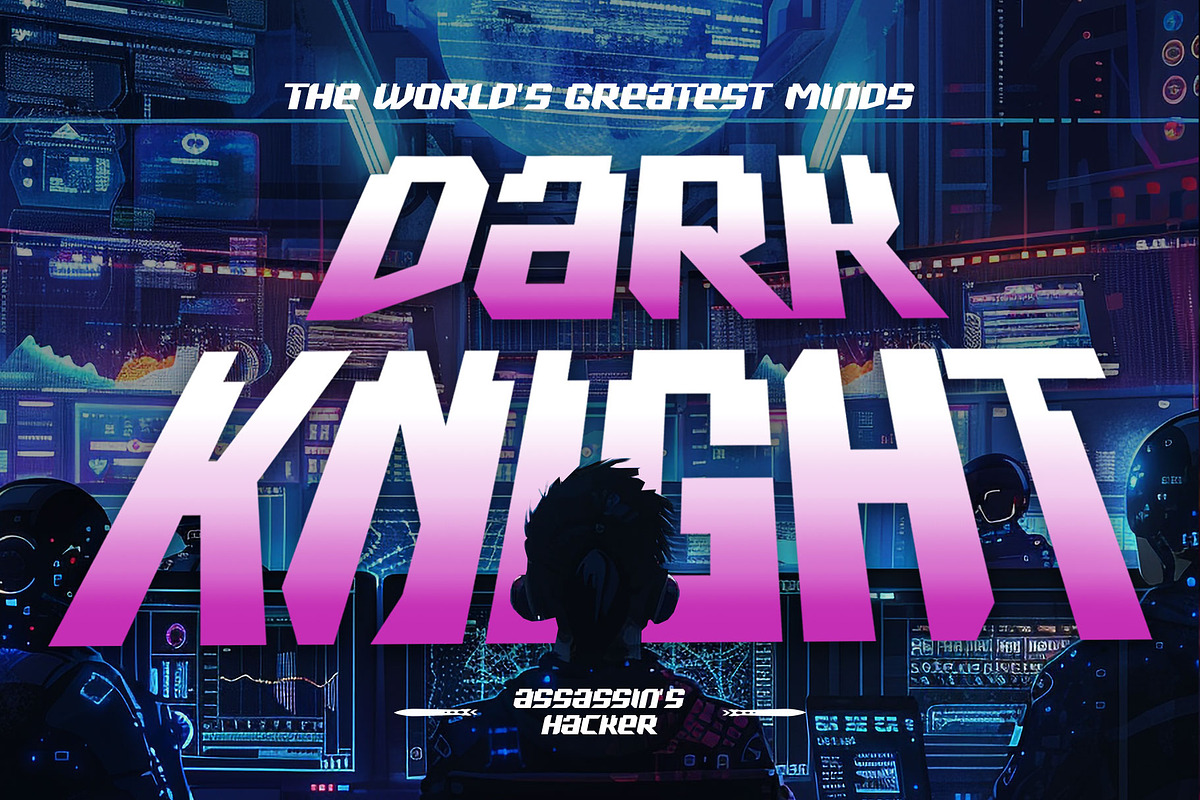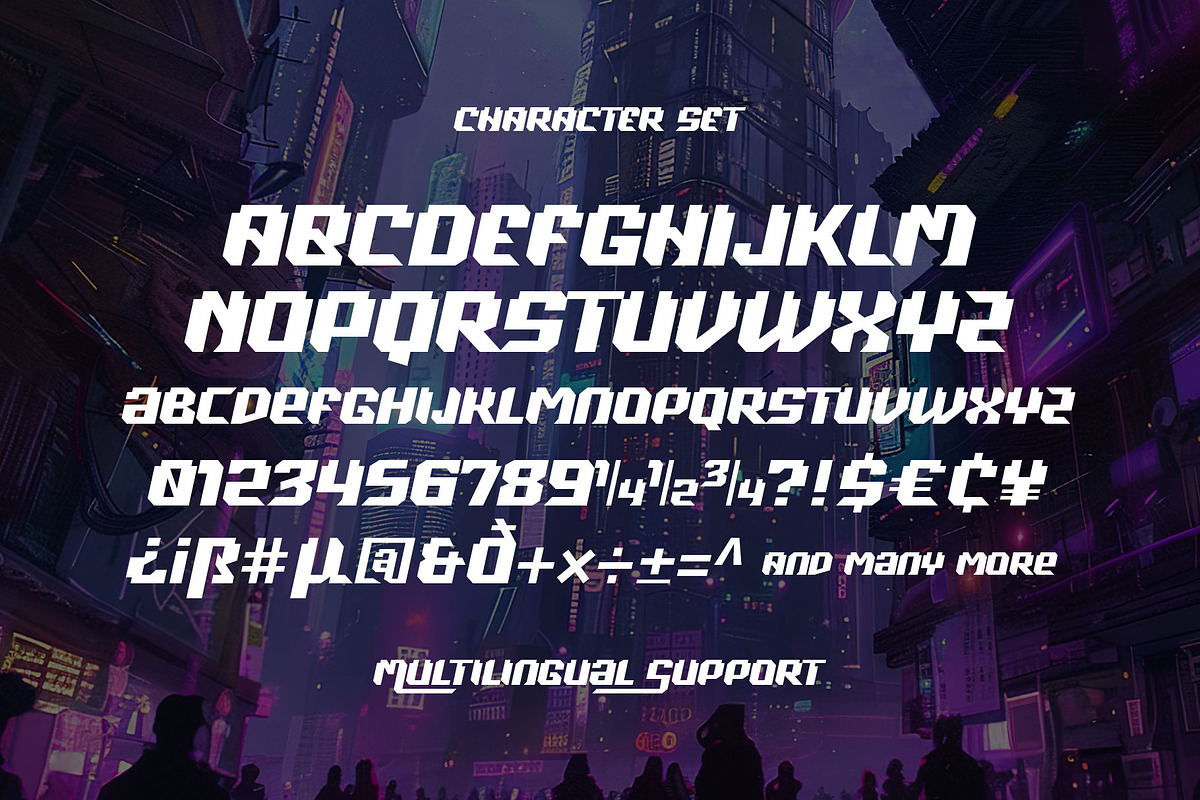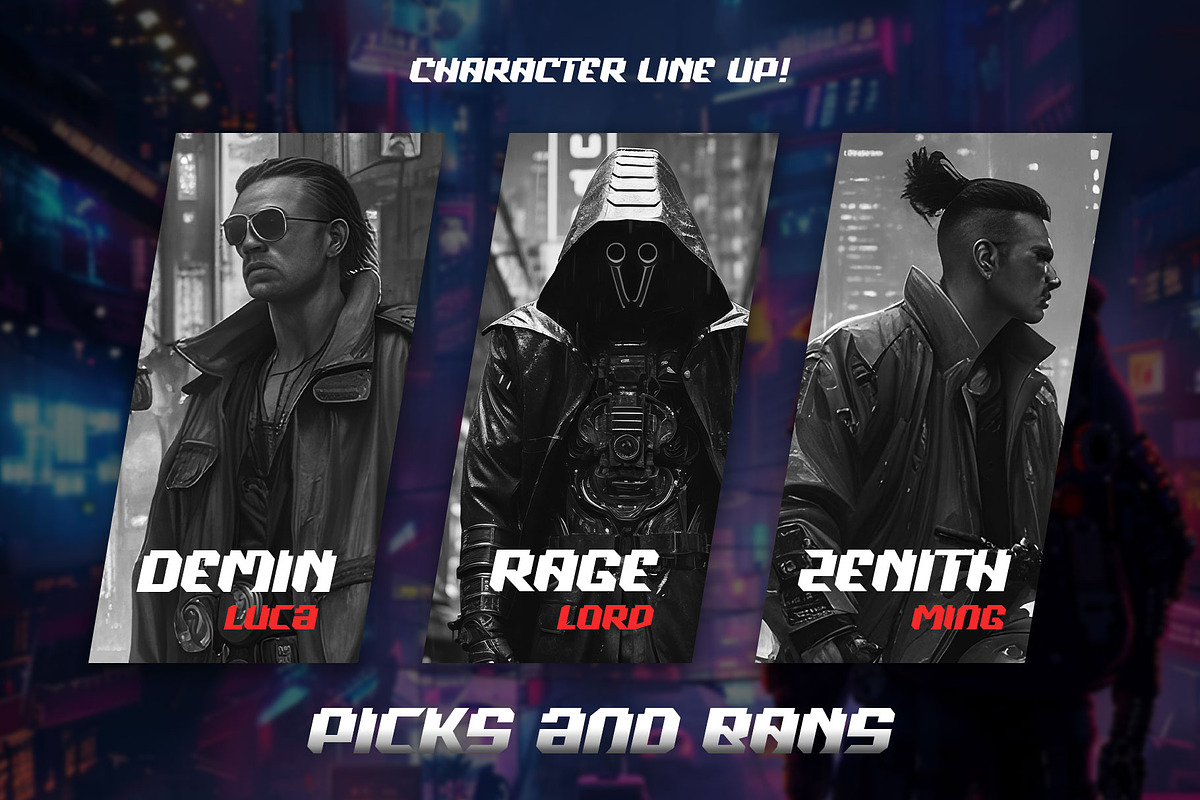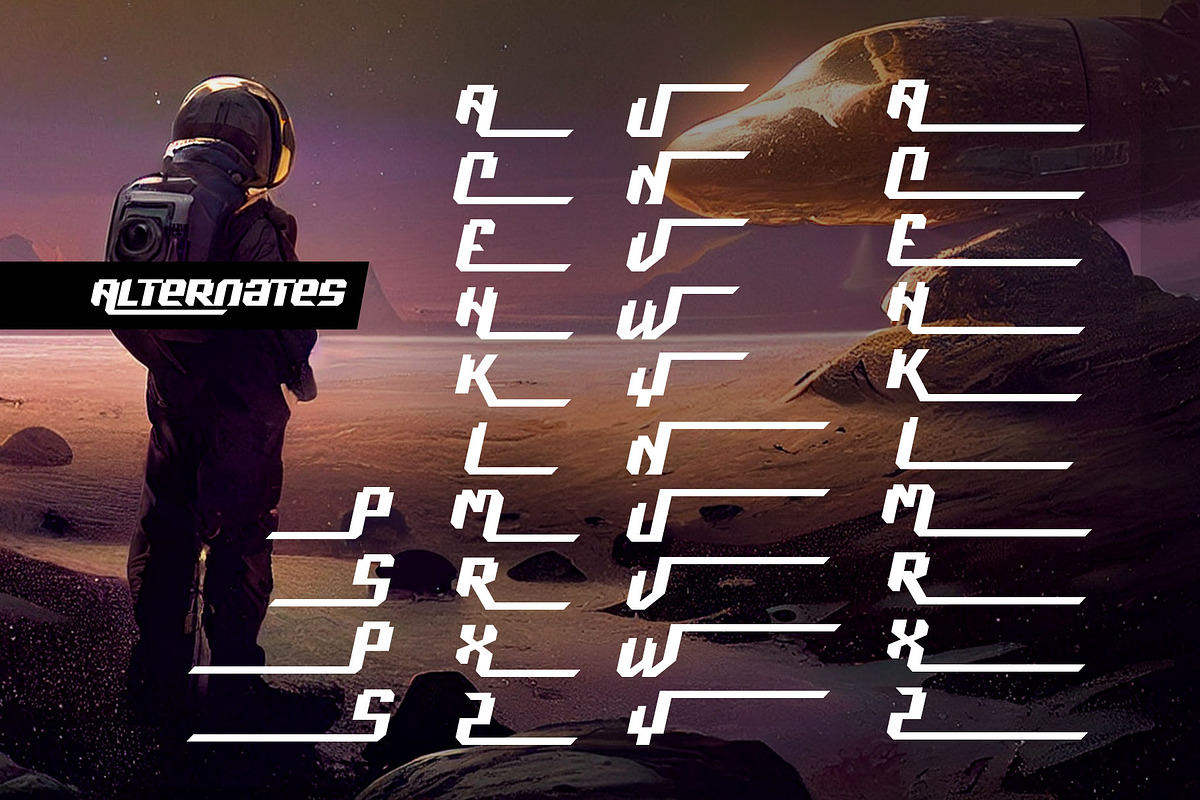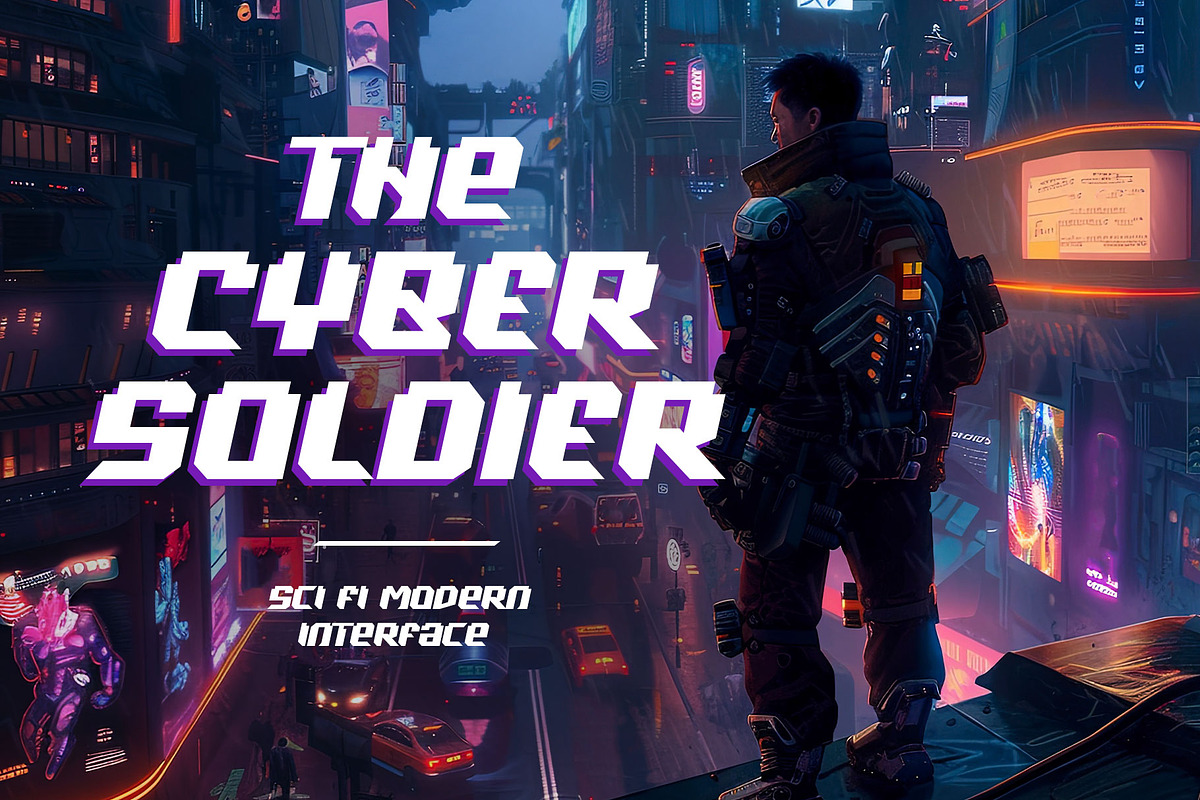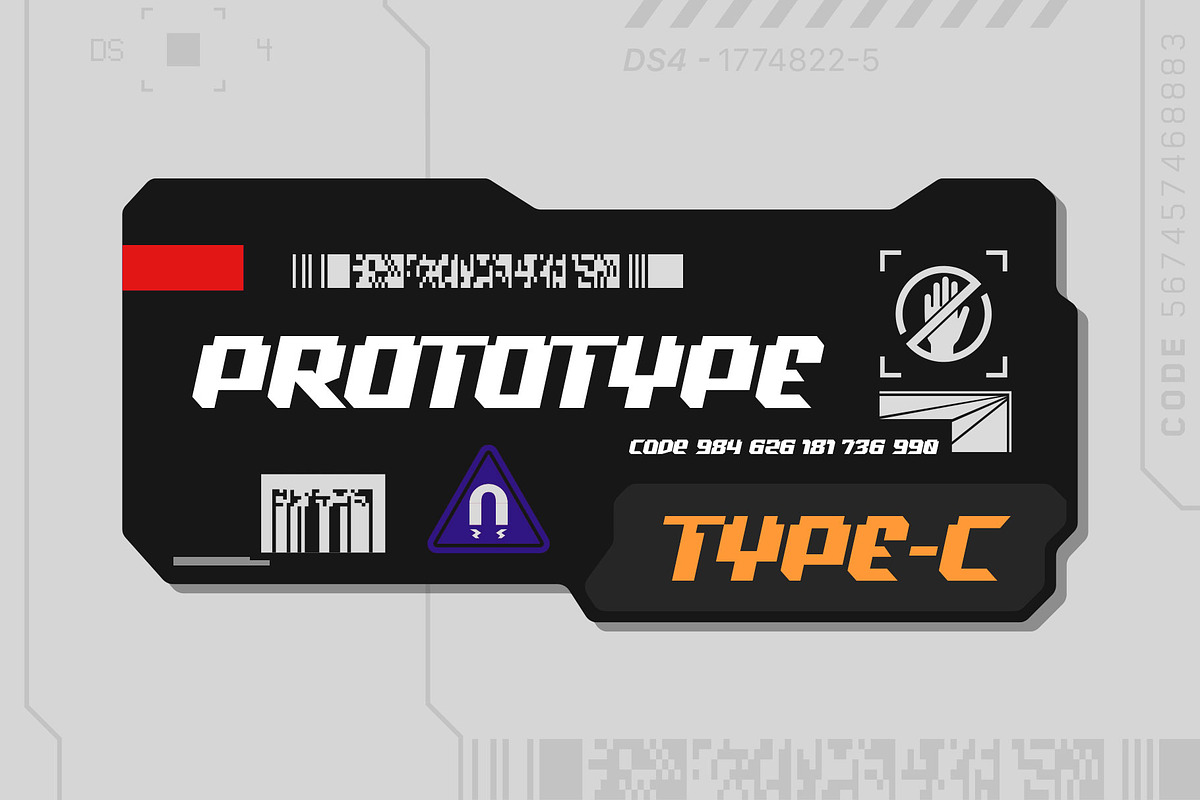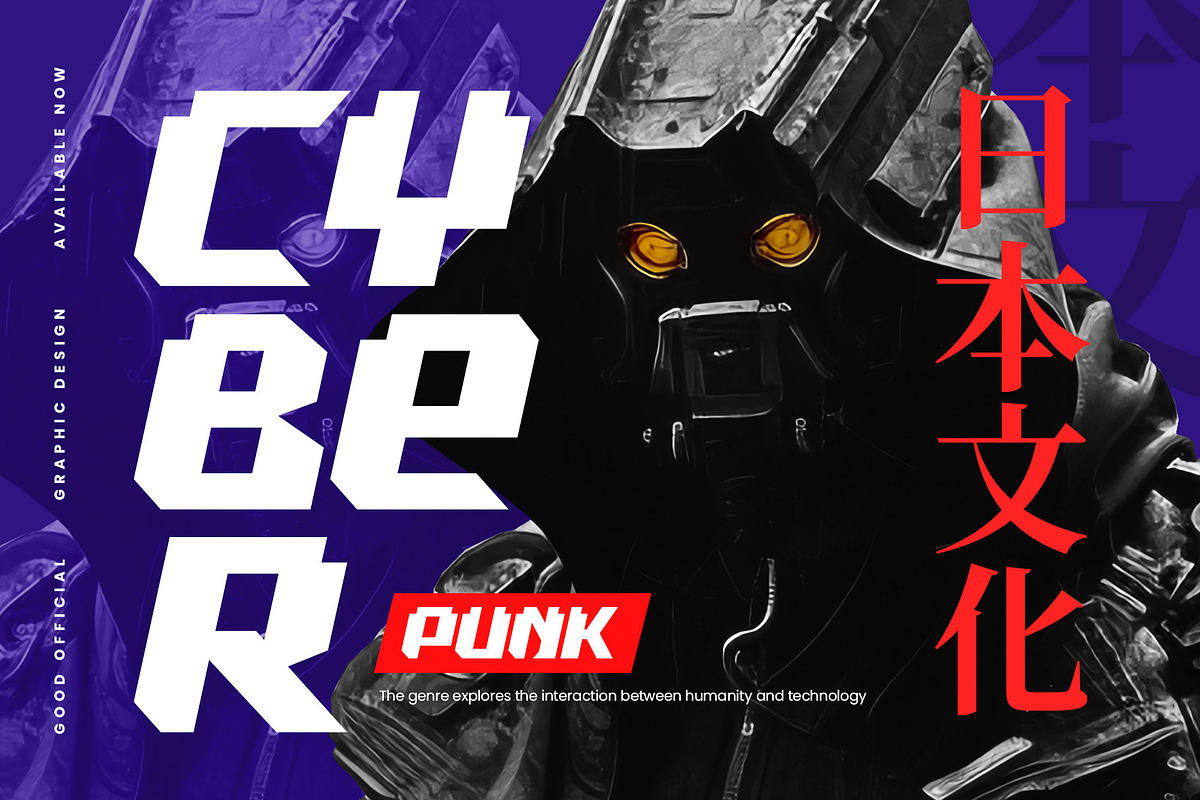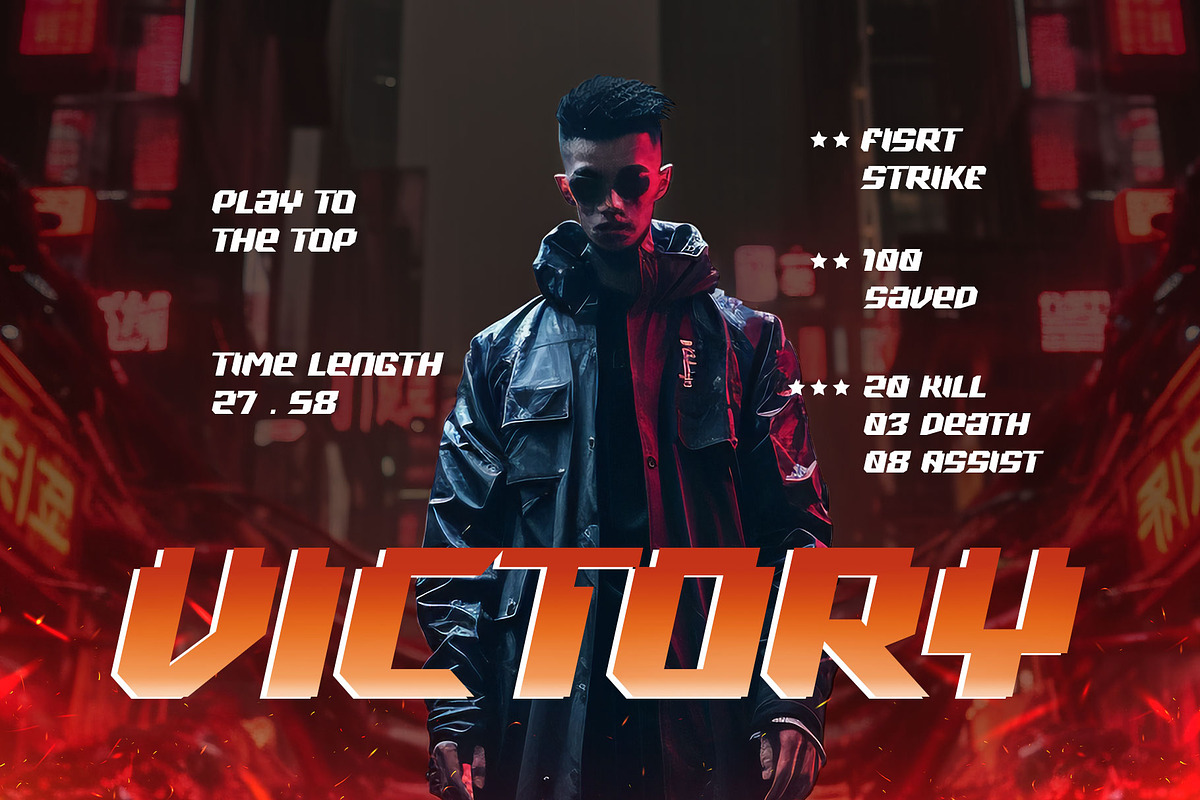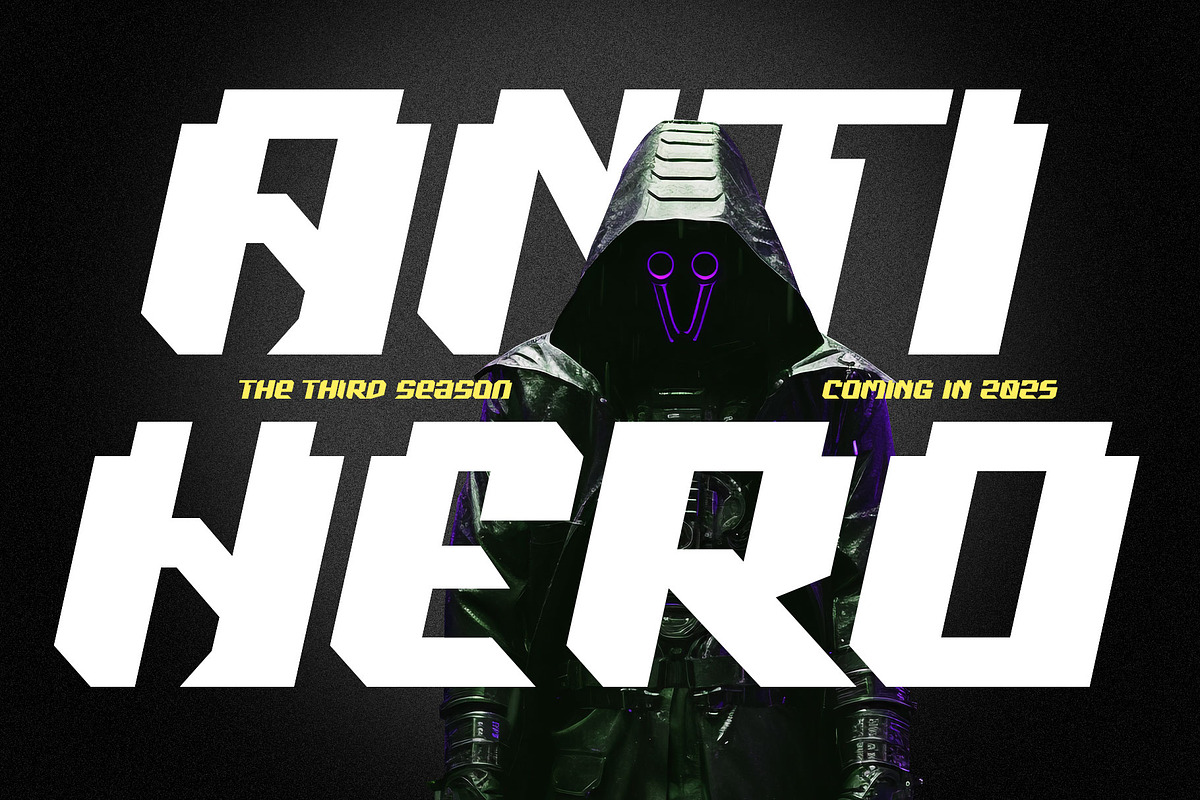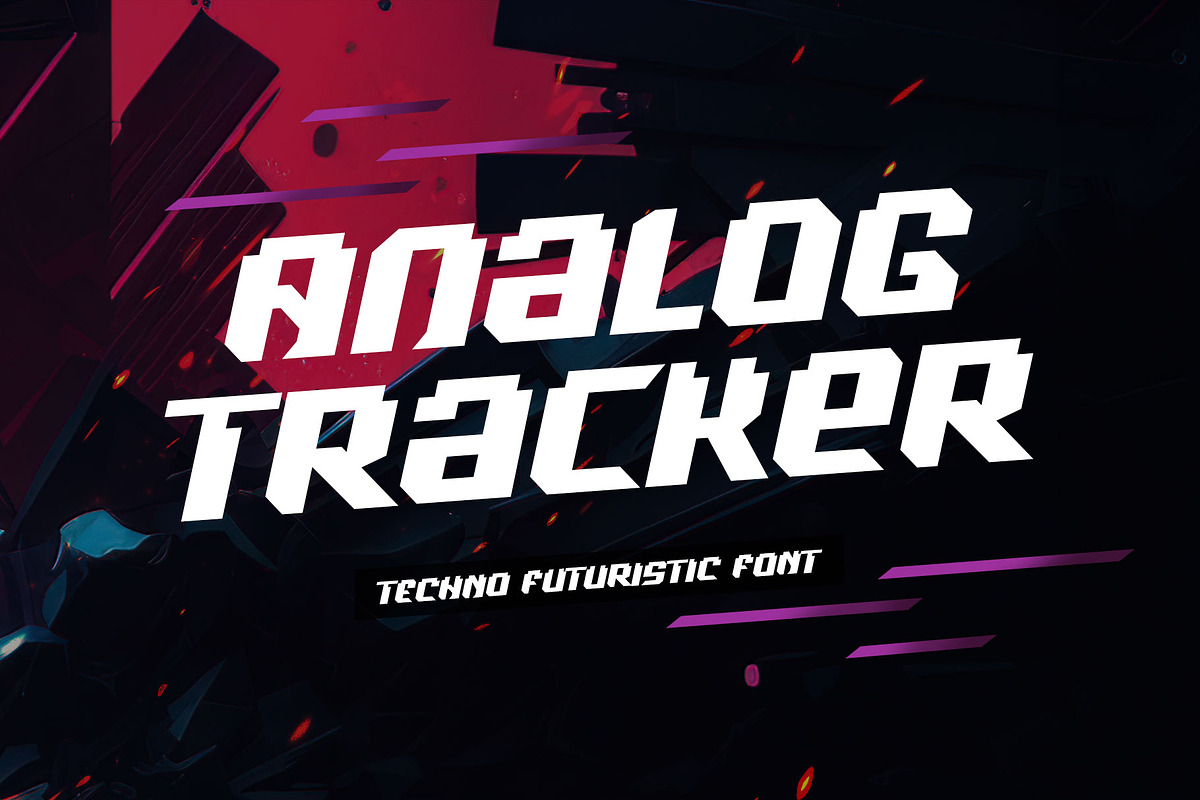
Analog Tracker - Techno Futuristic
Discover the Future with Analog Tracker Font. A techno-style font featuring bold and slanted shapes that add a dynamic flair to your designs.
This unique font blends futuristic, retro, pixel, and sports styles, making it versatile for various themes. Complete with special characters and swashes, your typography will stand out like never before! Perfect for displays, headlines, posters, flyers, logos, UI, motion graphics, and more.
- All caps character set
- Stylistic alternates